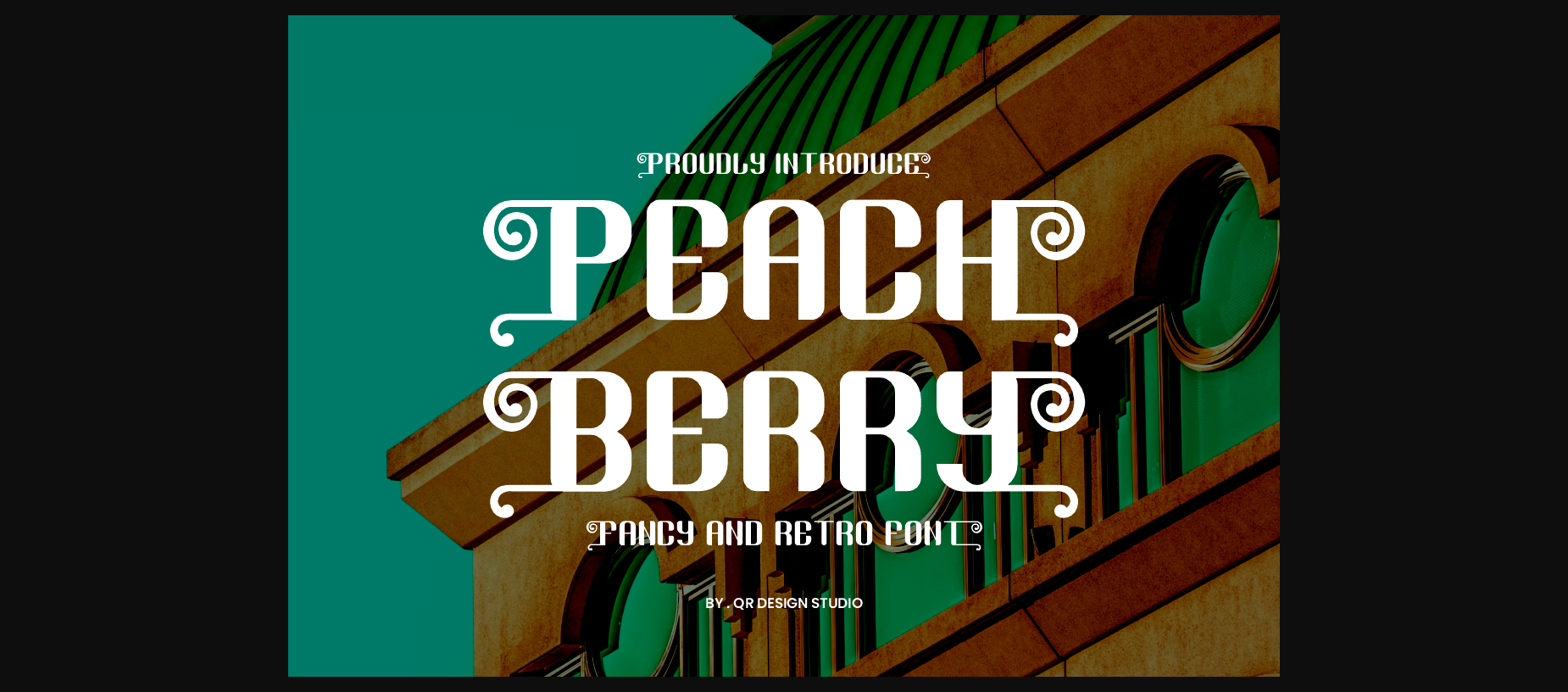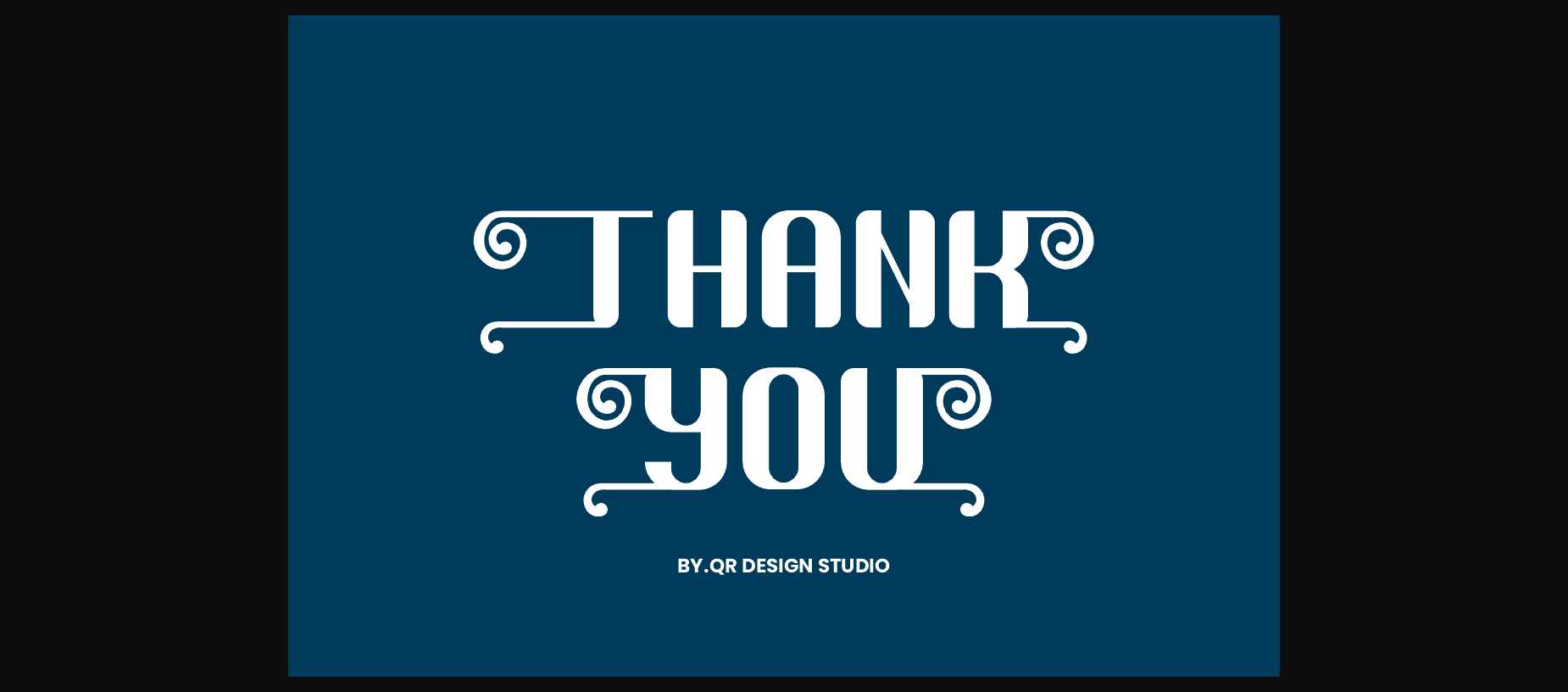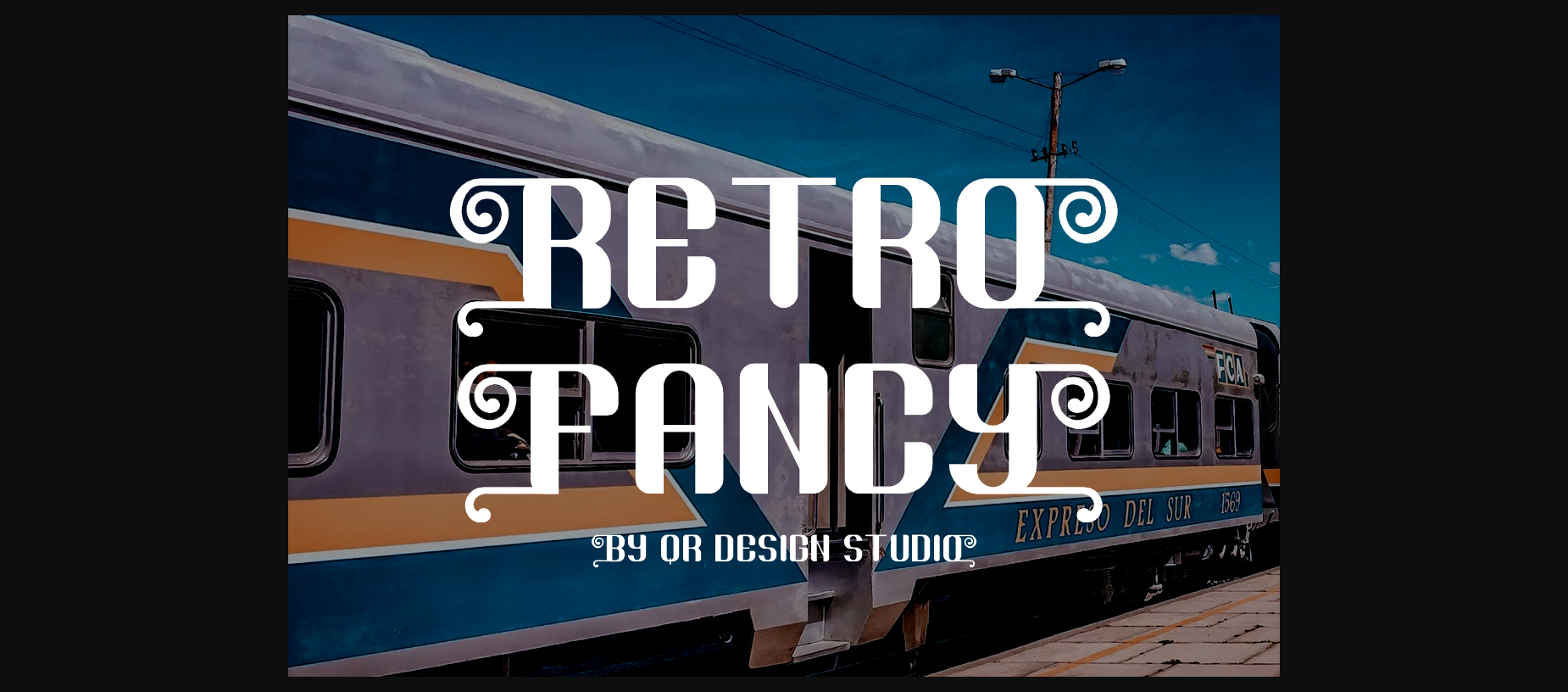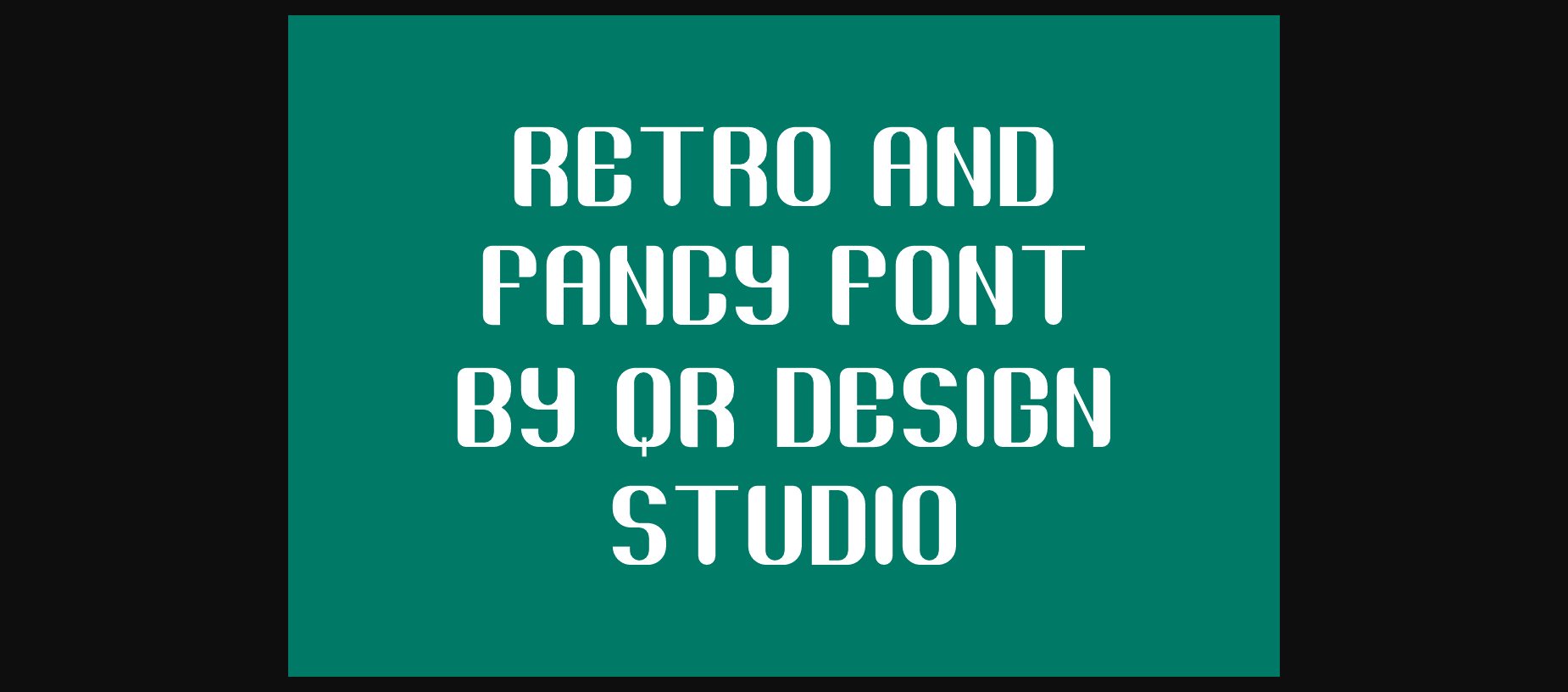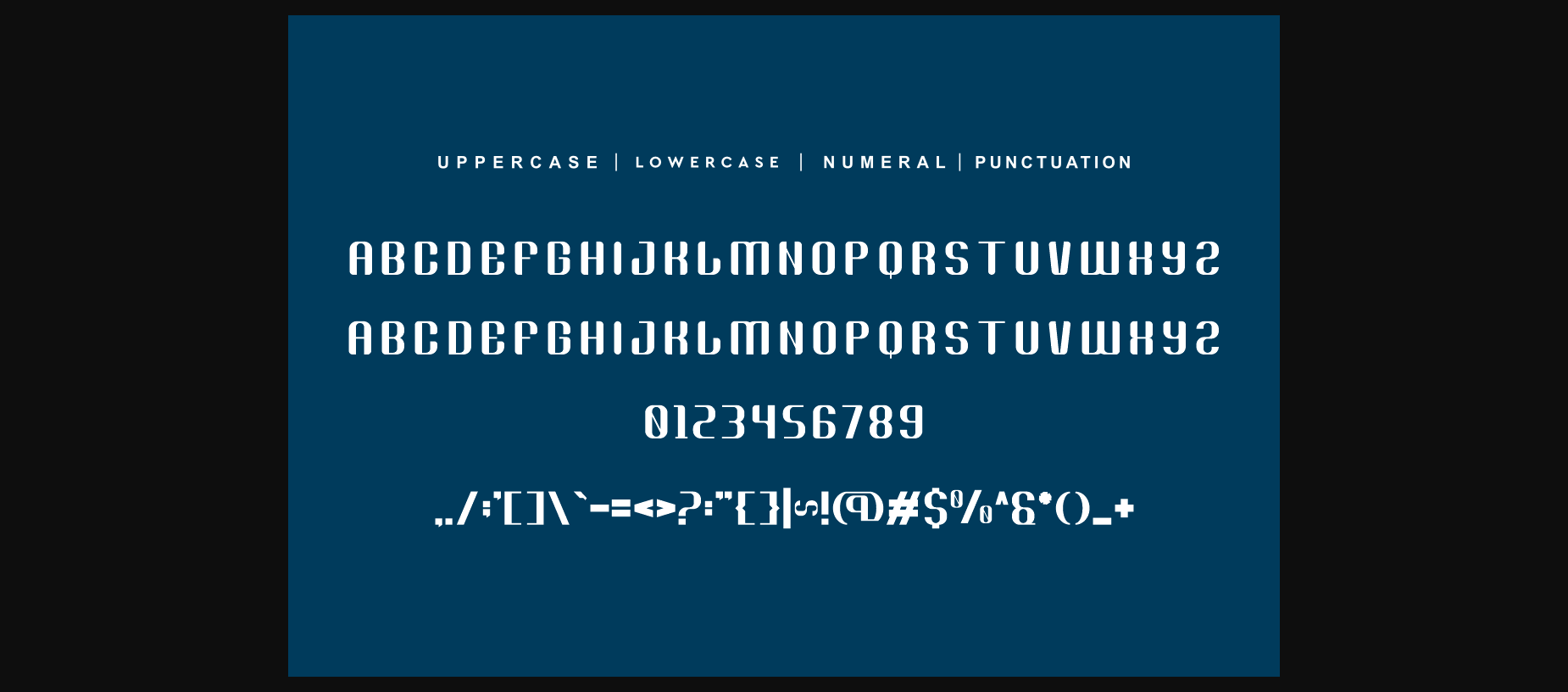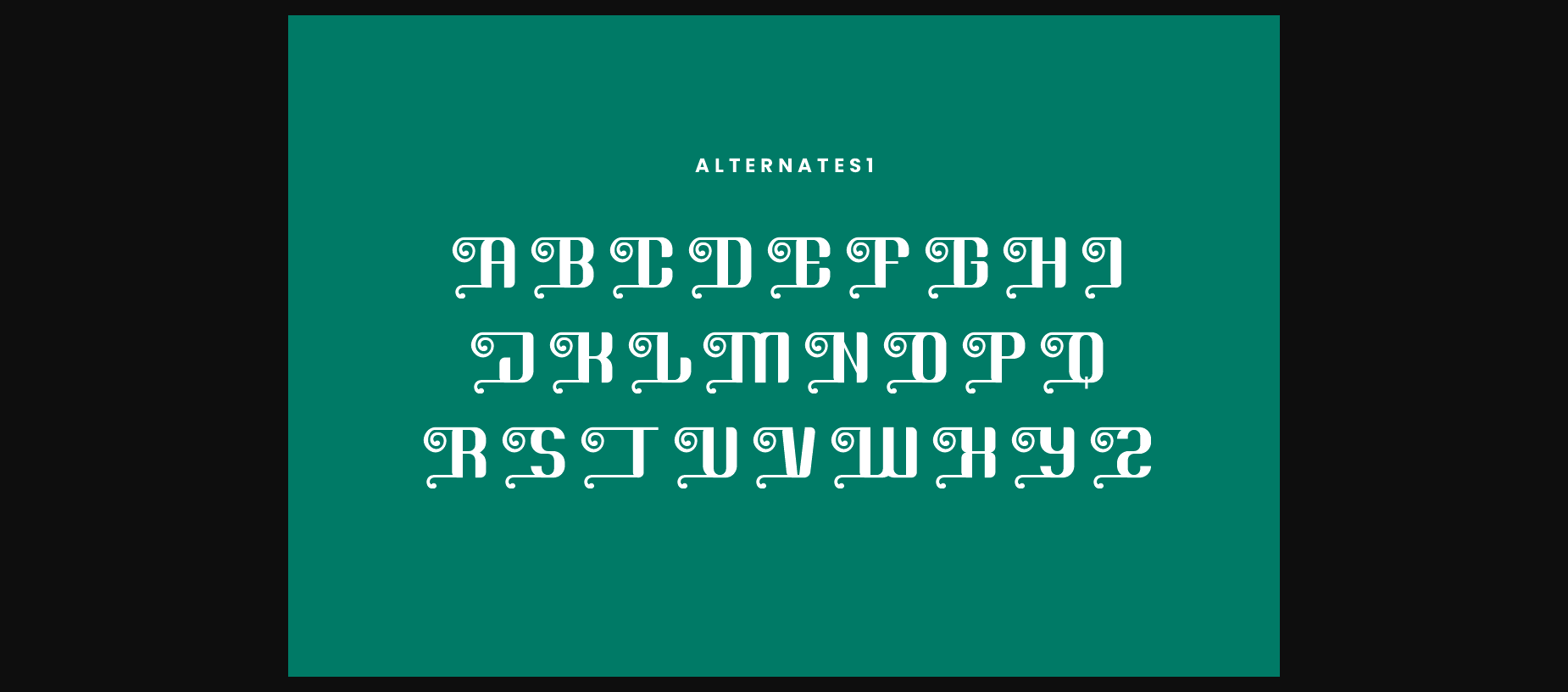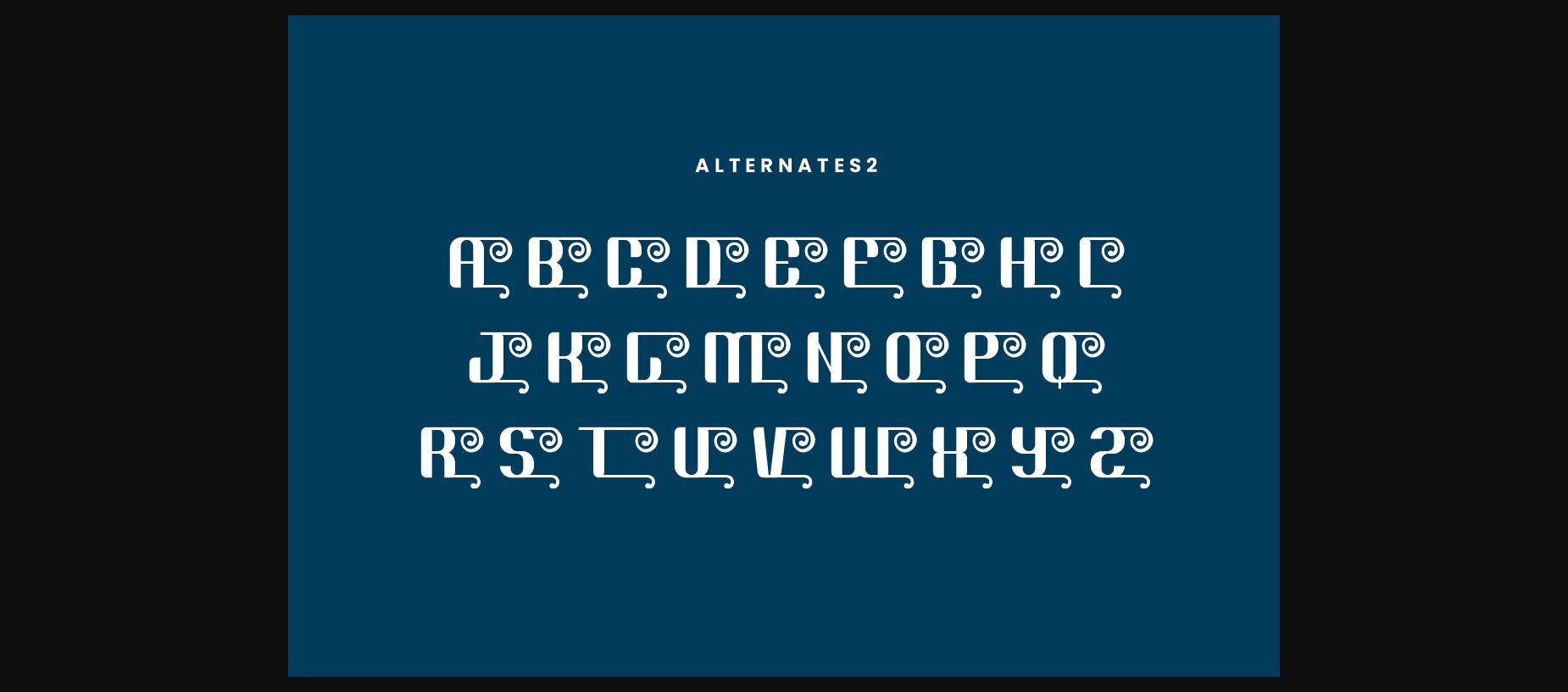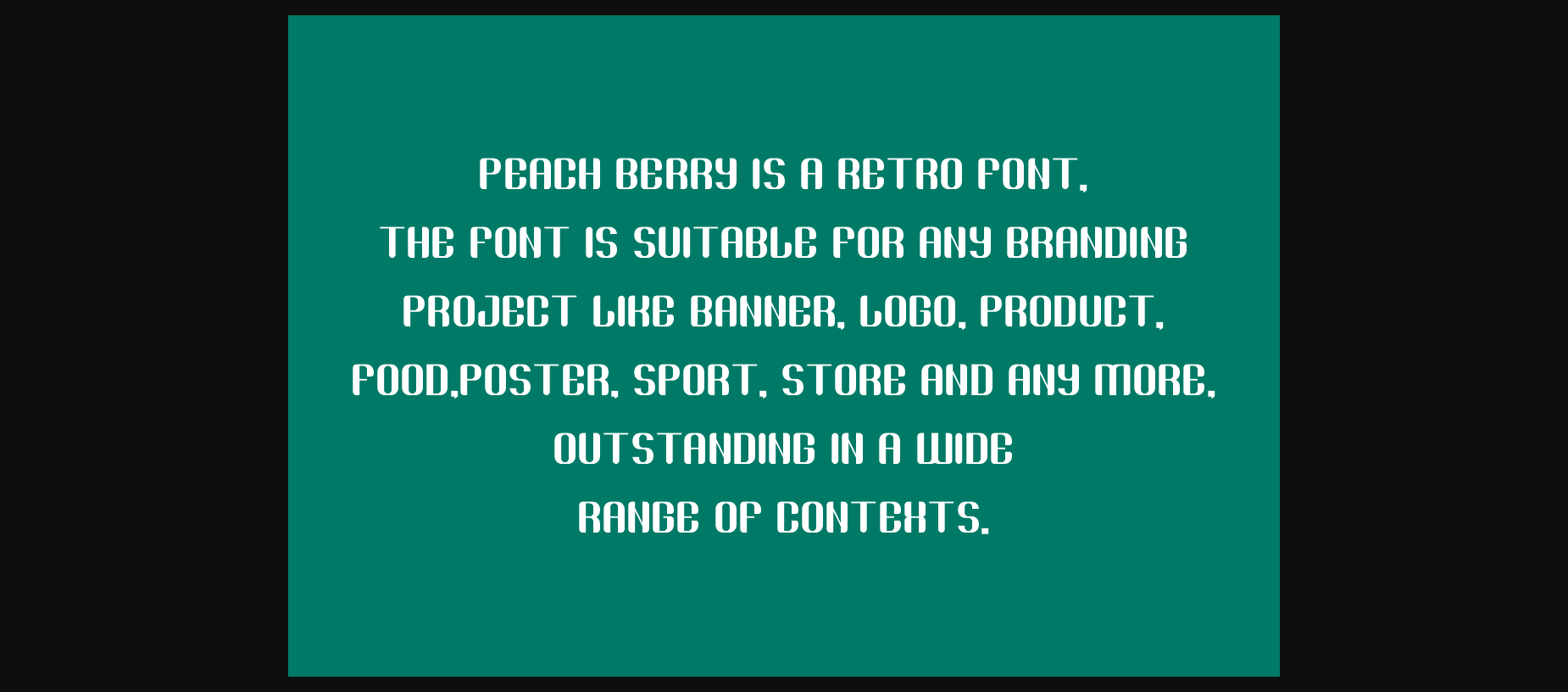
HomeSans Serif FontsPeach Berry Font Sans Serif Fonts Peach Berry Font FacebookXPinterestWhatsApp 1 of 10 ... Peach Berry Font Poster 2... Peach Berry Font Poster 3... Peach Berry Font Poster 4... Peach Berry Font Poster 5... Peach Berry Font Poster 6... Peach Berry Font Poster 7... Peach Berry Font Poster 8... Peach Berry Font Poster 9... Peach Berry Font Poster 10... About Peach Berry Font Peach Berry is a funky sans-serif font. Add it to your creative projects and you will love the results! DOWNLOAD NOW People also explored Techno Sphere Font What is Love? Font Lola Font Brain Ooze Font Standby Font Amoriny Font Banner and Arrows Font Anboxing Font One Heart Font 473 0 TagsPeach Berry Font Previous articleUbiglan FontNext articleShepro Gobegih Font LEAVE A REPLY Cancel reply Comment: Please enter your comment! Name:* Please enter your name here Email:* You have entered an incorrect email address! Please enter your email address here Website: Save my name, email, and website in this browser for the next time I comment. Personal Use Free BD Medled Personal Use Free Read more about this font Term Free Personal Use Free Read more about this font Bolt Electric Personal Use Free Read more about this font Sarwendah Personal Use Free Read more about this font BLOG Top 7 Google Fonts Alternatives for Faster and Privacy-Friendly Web Design (2025) Top 7 Google Fonts Alternatives for Faster and Privacy-Friendly Web Design (2025) When it comes to web typography, Google Fonts has long been the go-to... Exploring Font Trends Modern Sans-Serif Fonts That Brands Love in 2025 Free Fonts Risk: Why Free Fonts Can Be Dangerous for Designers